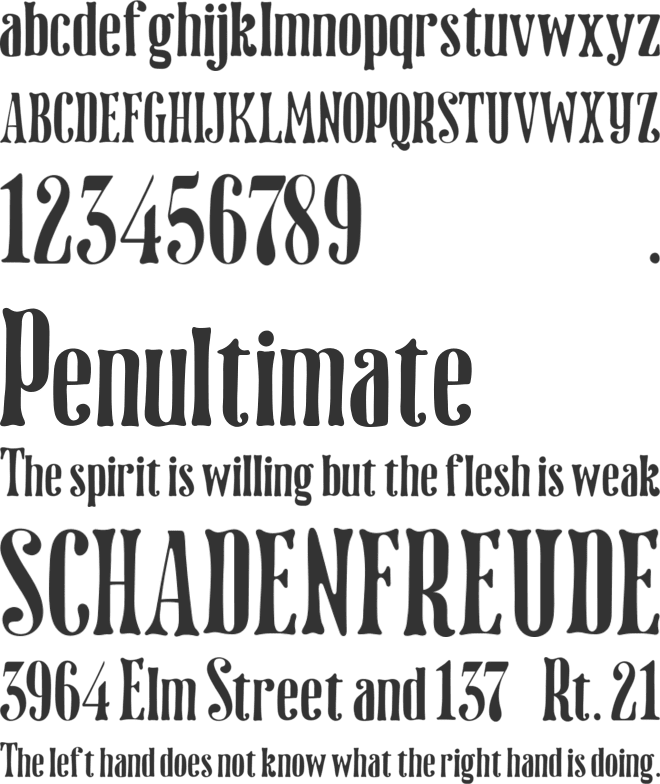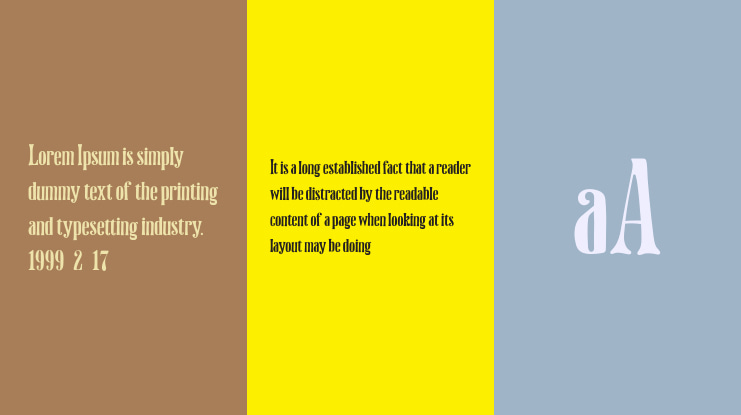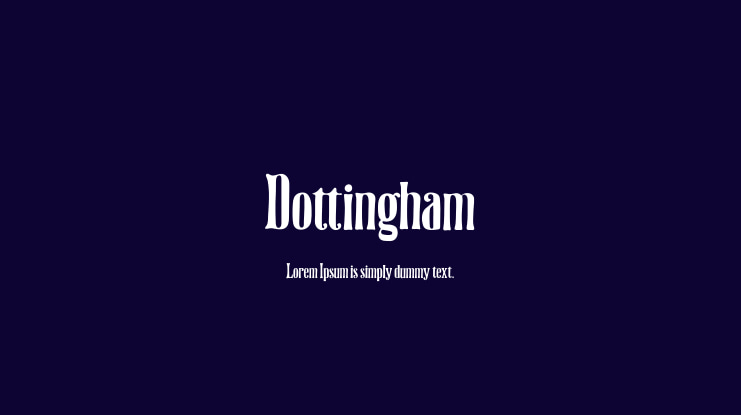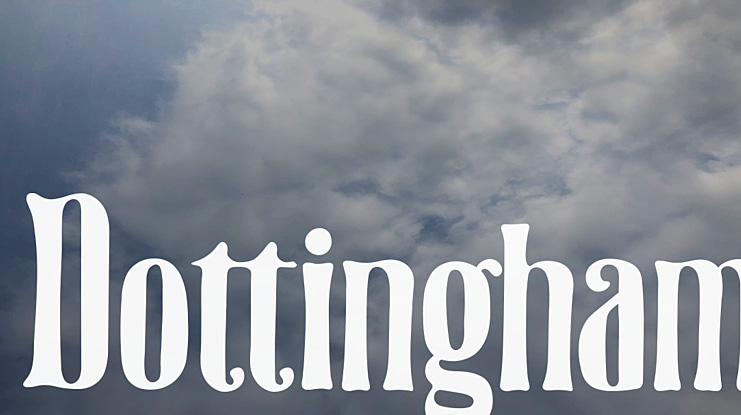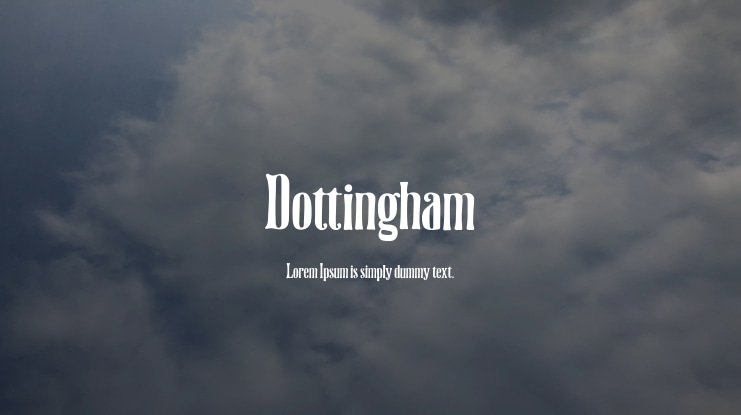
Dottingham is a vintage style display font with a look that will take you back to the Victorian era. Inspiration for this 2 member family came from signage, publications, and old advertisements that appeared not only in Europe, but North America as well during the 19th century.
Exaggerated serifs, wispy strokes, and high contrast dominate the character set. For those looking for a bit more authenticity, a distressed version is available for a straight-out-of-the-box eroded look. This unique styling makes it a strong choice when attention is paramount to your project. Dottingham is equipped with Basic Latin, Extended Latin/diacritics, kerning, ligatures, fractions, and some alternates. The demo contains basic Latin and limited punctuation. Use it for a Pub logo, book cover, or restaurant menu.